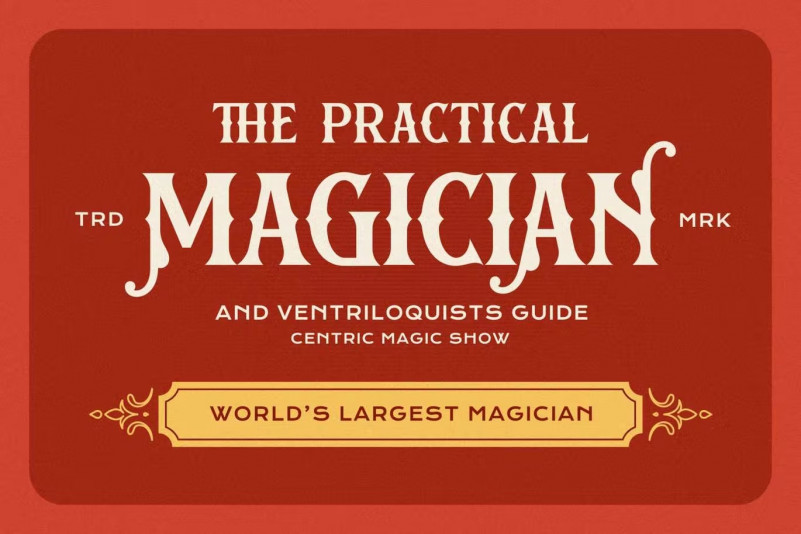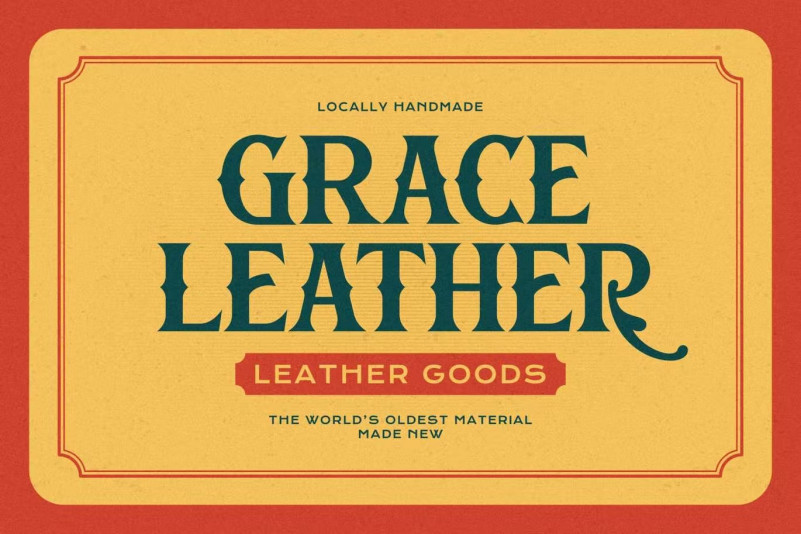
Roxike Font
Roxike Font is perfect for many of your projects such as logos and branding, photography, invitations, watermarks, advertising, product design, stationery, wedding design, labels, product packaging, special events and more.